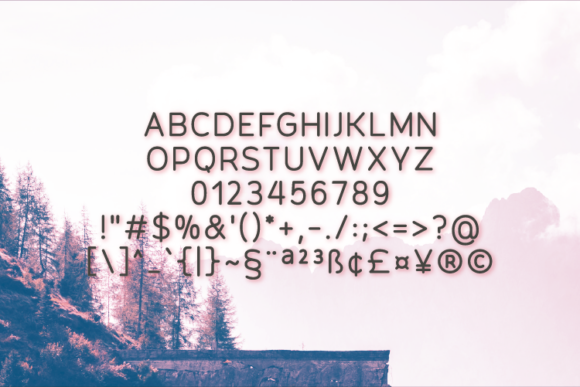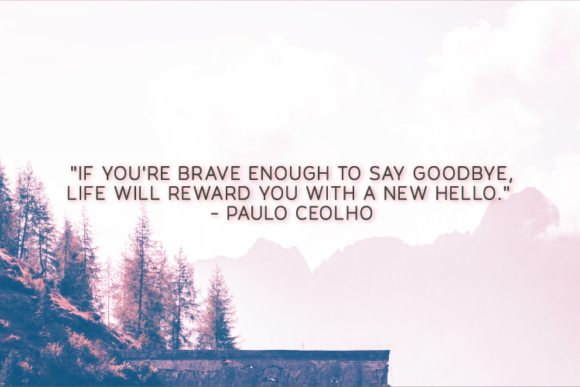
Drovezt Font: The Ultimate Sans Serif Font for Your Design Projects
Are you tired of using the same old fonts for your design projects? Look no further than Drovezt Font, a simple yet elegant sans serif font that’s perfect for adding a touch of modernity to your creations. In this article, we’ll dive into the world of Drovezt Font and explore its features, benefits, and uses.
What is Drovezt Font?
Drovezt Font is a clean, neat, and fresh sans serif font designed to complement every project you’re currently creating. Its simplicity and elegance make it an excellent choice for designers and crafters looking for a versatile font that can be used in a variety of applications.
Key Features of Drovezt Font
- Simple and Elegant Design: Drovezt Font boasts a straightforward and uncomplicated design that makes it easy to read and understand.
- Clean and Fresh Vibe: The font’s clean lines and fresh vibe give it a modern and sophisticated look that’s perfect for contemporary designs.
- Versatility: Drovezt Font can be used in a wide range of design projects, from logos and branding to posters, flyers, and digital media.
- Easy to Read: The font’s clear and legible design ensures that your message gets across effectively, making it ideal for body text and headings.
Benefits of Using Drovezt Font
So, why should you choose Drovezt Font for your design projects? Here are just a few benefits of using this amazing font:
- Enhance Your Design: Drovezt Font can elevate your design and give it a professional look that’s sure to impress.
- Save Time: With its versatility and ease of use, Drovezt Font can save you time and effort in your design projects.
- Stand Out: The font’s unique and modern design can help your project stand out from the crowd and grab attention.
Who Can Use Drovezt Font?
Drovezt Font is perfect for a wide range of designers and crafters, including:
- Graphic Designers: Use Drovezt Font to create stunning logos, branding, and marketing materials.
- Digital Artists: Add a touch of modernity to your digital art with Drovezt Font.
- Crafters: Use Drovezt Font to create beautiful handmade cards, scrapbook pages, and other craft projects.
- Web Designers: Drovezt Font is perfect for web design projects, including website headers, body text, and more.
How to Use Drovezt Font
Using Drovezt Font is easy! Here are a few tips to get you started:
- Pair it with Other Fonts: Experiment with pairing Drovezt Font with other fonts to create a unique and visually appealing design.
- Adjust the Size and Color: Play around with different sizes and colors to find the perfect combination for your design.
- Use it for Headings and Body Text: Drovezt Font is perfect for both headings and body text, making it a versatile addition to your design toolkit.
In conclusion, Drovezt Font is a simple yet elegant sans serif font that’s perfect for adding a touch of modernity to your design projects. Its clean, neat, and fresh vibe makes it an excellent choice for designers and crafters looking for a versatile font that can be used in a variety of applications. With its ease of use, versatility, and professional look, Drovezt Font is sure to become a staple in your design toolkit.